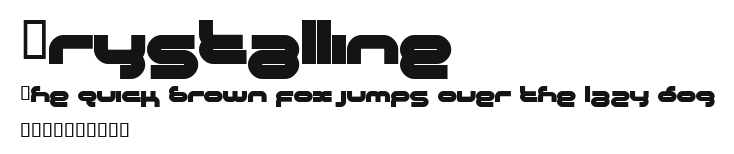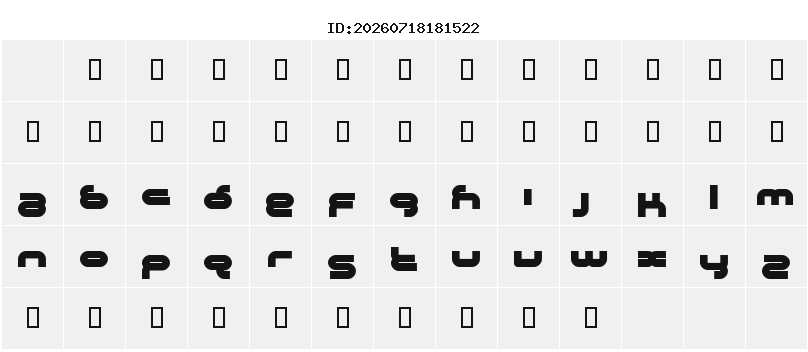
• Font Name: Crystalline
• Font ID: Macromedia Fontographer 4.1 Crystalline
• Full Font Name: Crystalline
• Version: Macromedia Fontographer 4.1 18.12.99
• PostScript Name: Crystalline
• Character Count: 29
About Crystalline.ttf
Crystalline.ttf is a modern, elegant sans-serif font designed for ultimate readability and visual harmony. Perfect for branding, headlines, web design, and print materials.